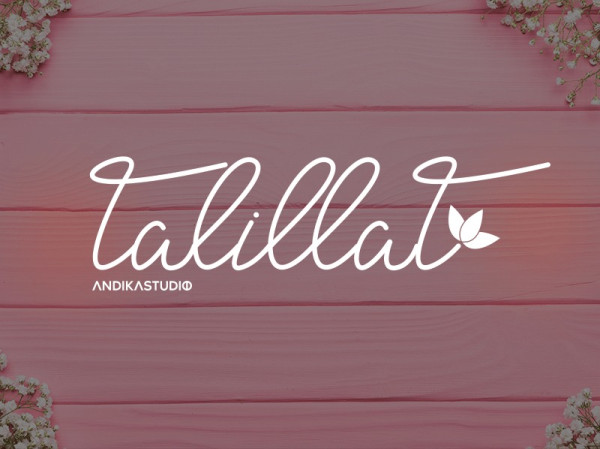
Talillat Font
Talillat Font, a luxury script that has its own unique style & modern look. This typeface is perfect for an elegant & luxury logo, book or movie title design, fashion brand, magazine, clothes, lettering, quotes, and so much more.